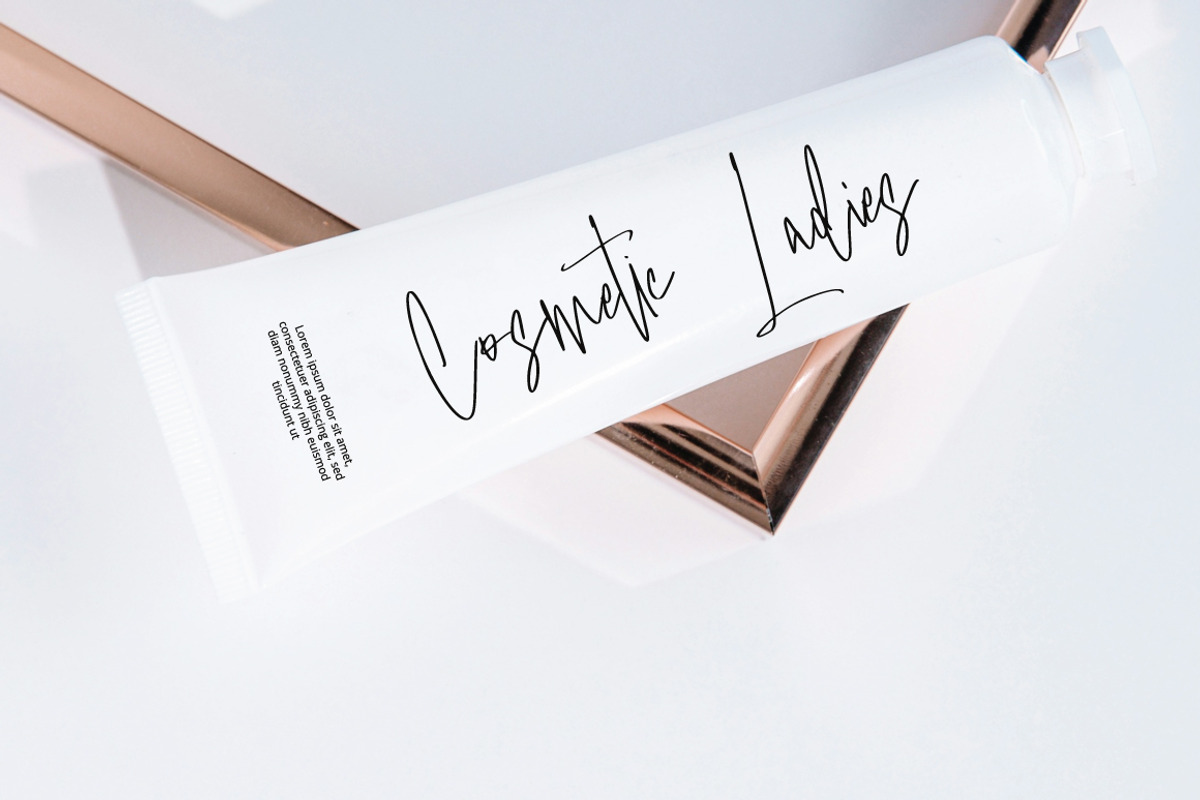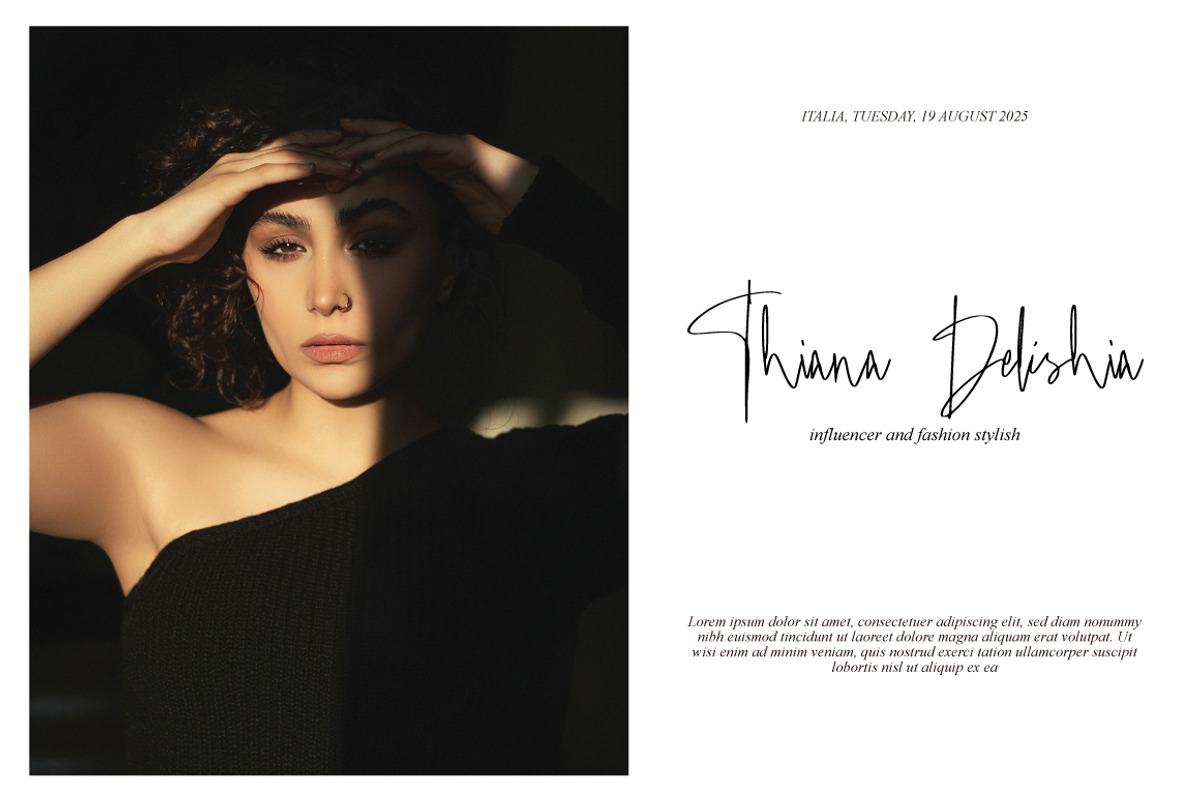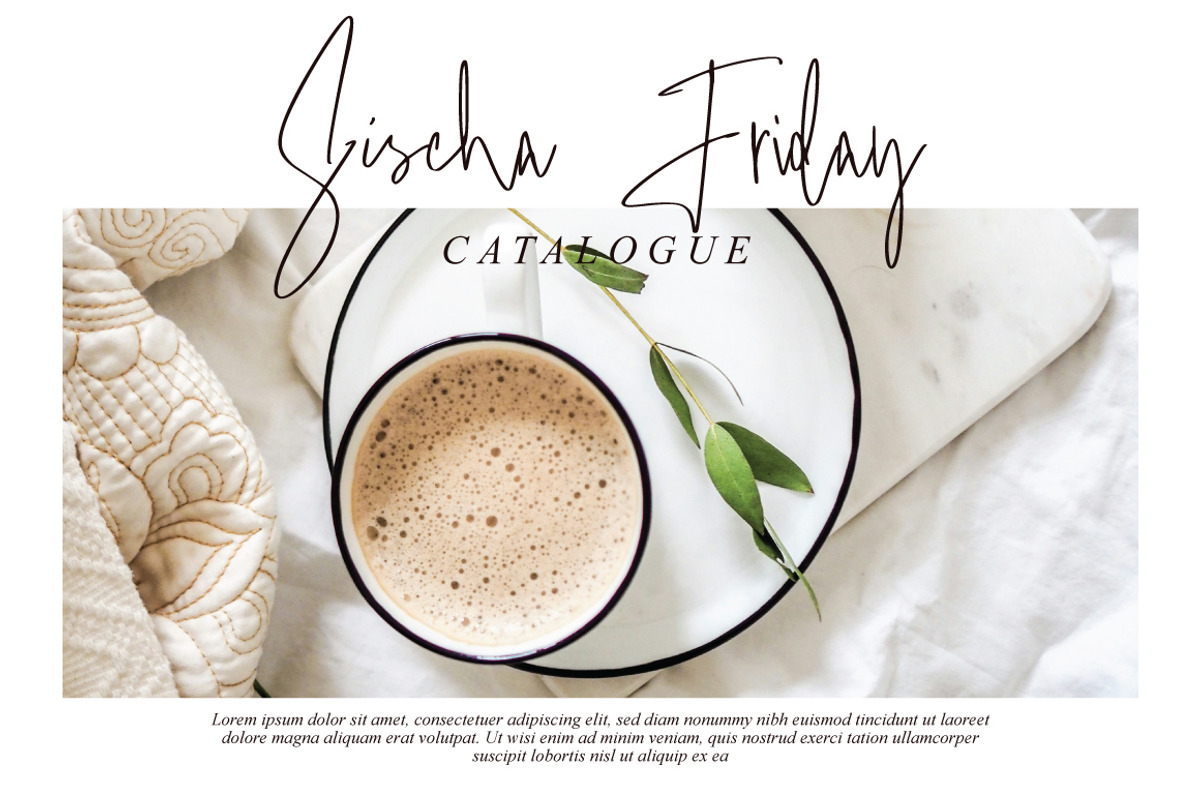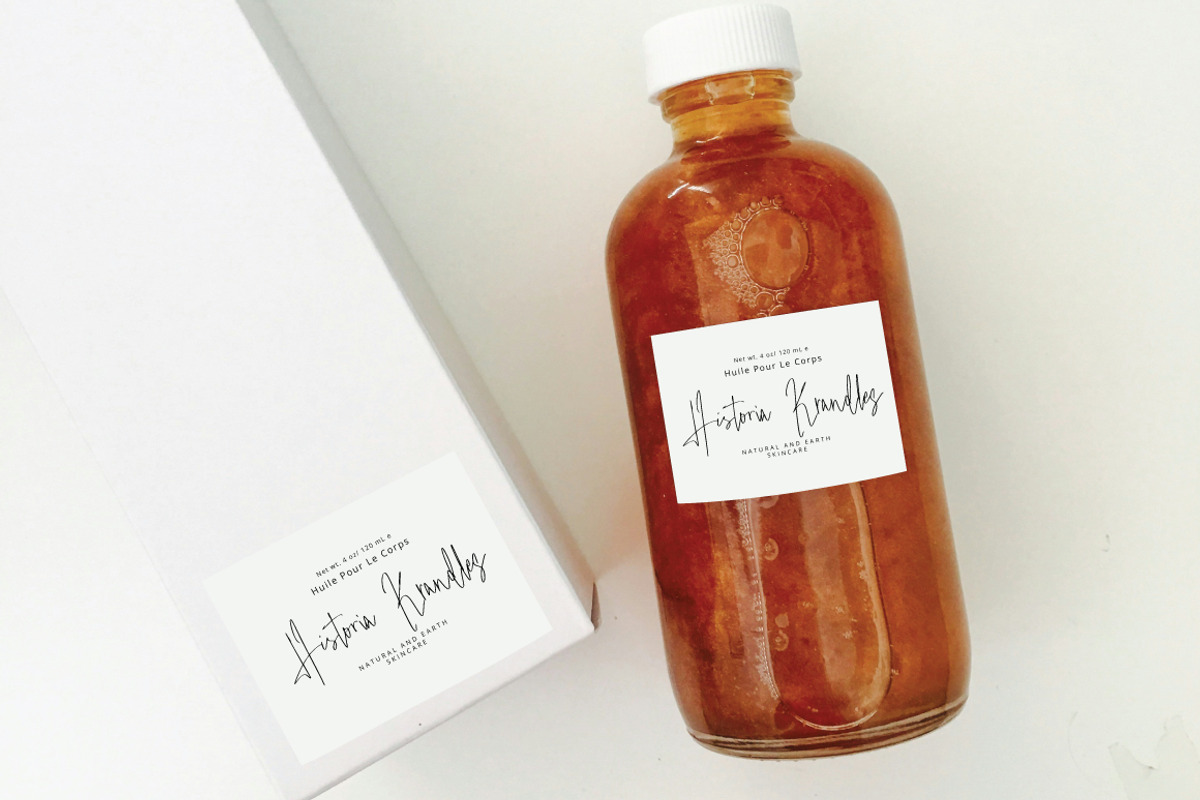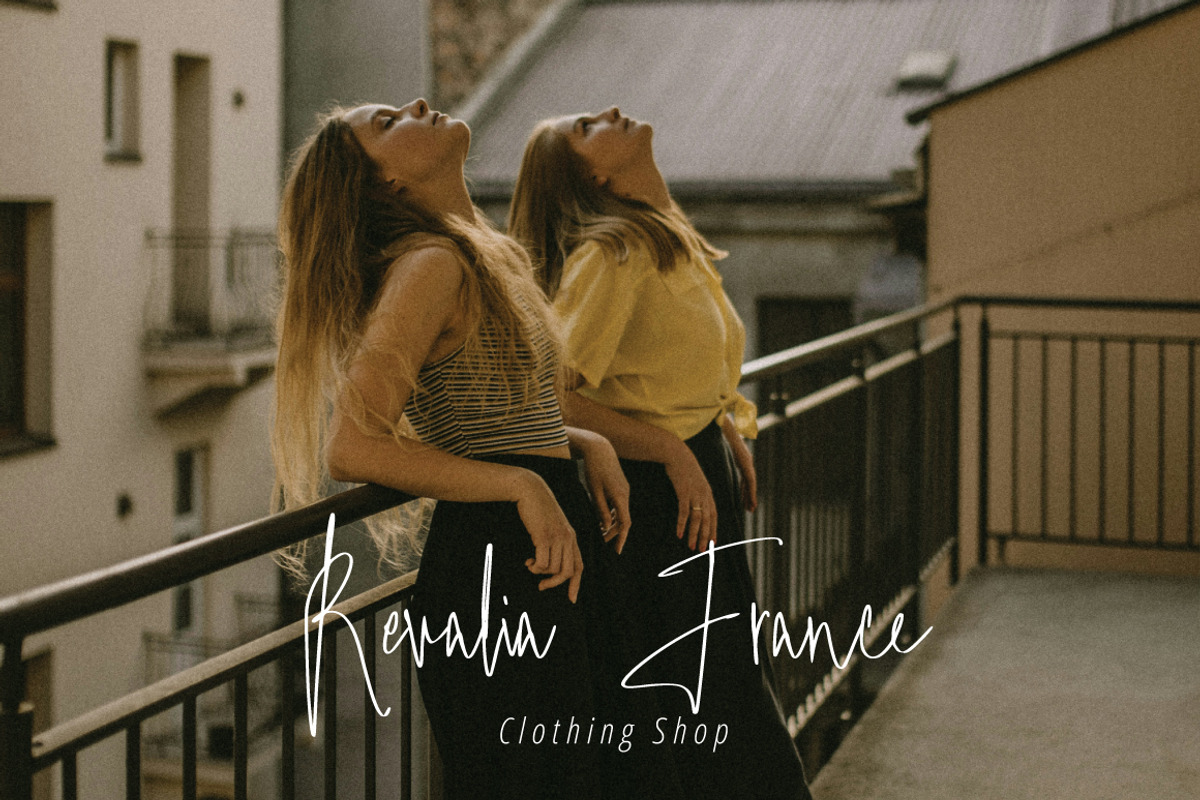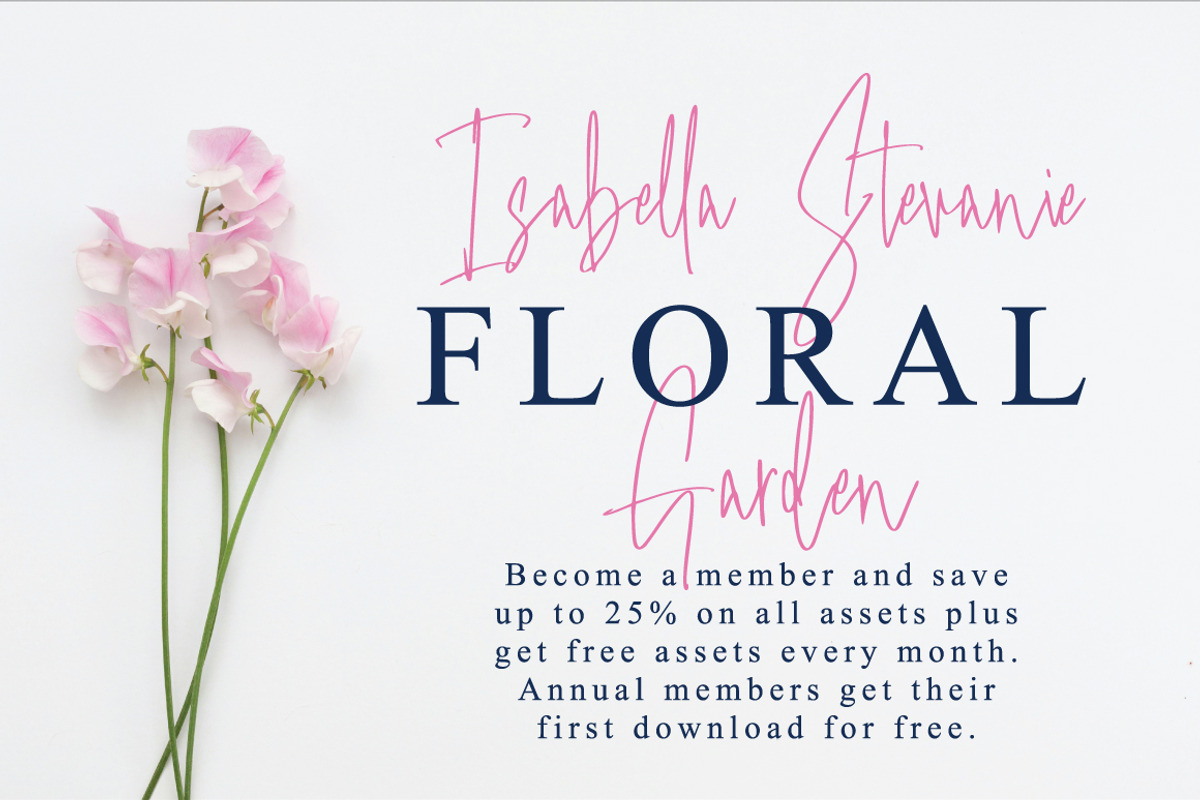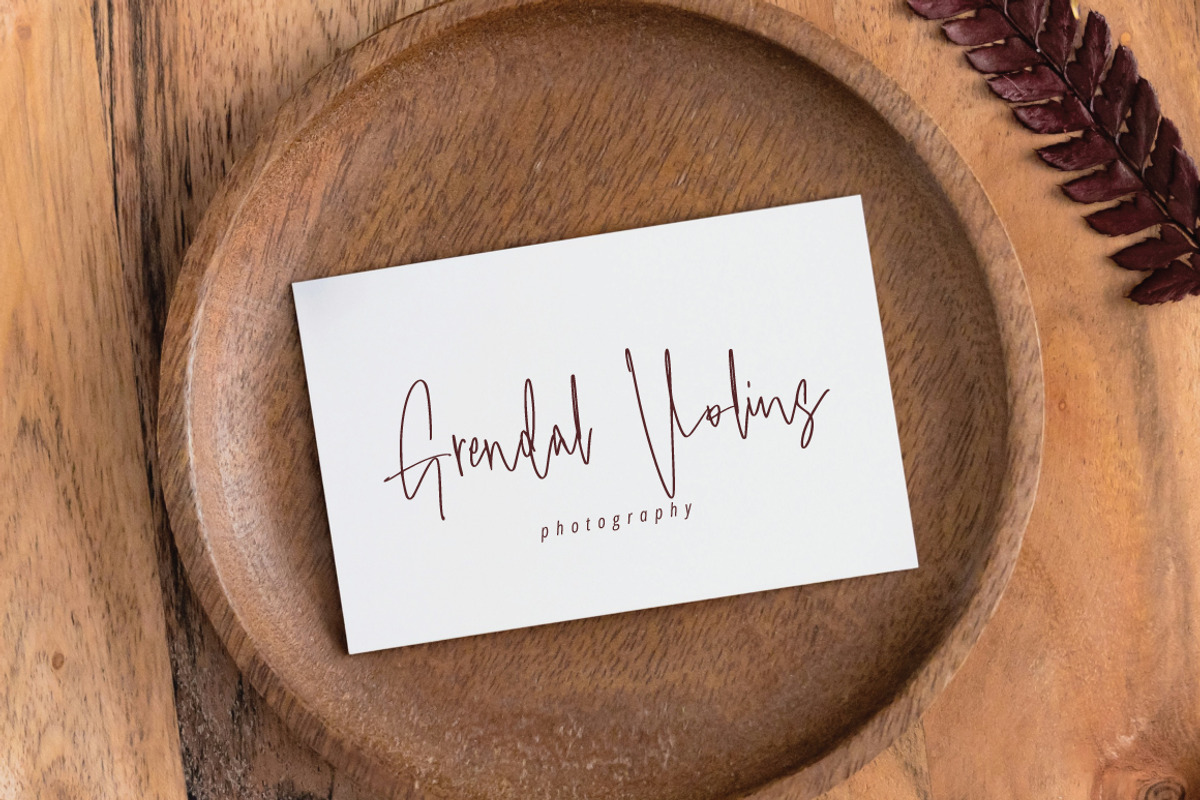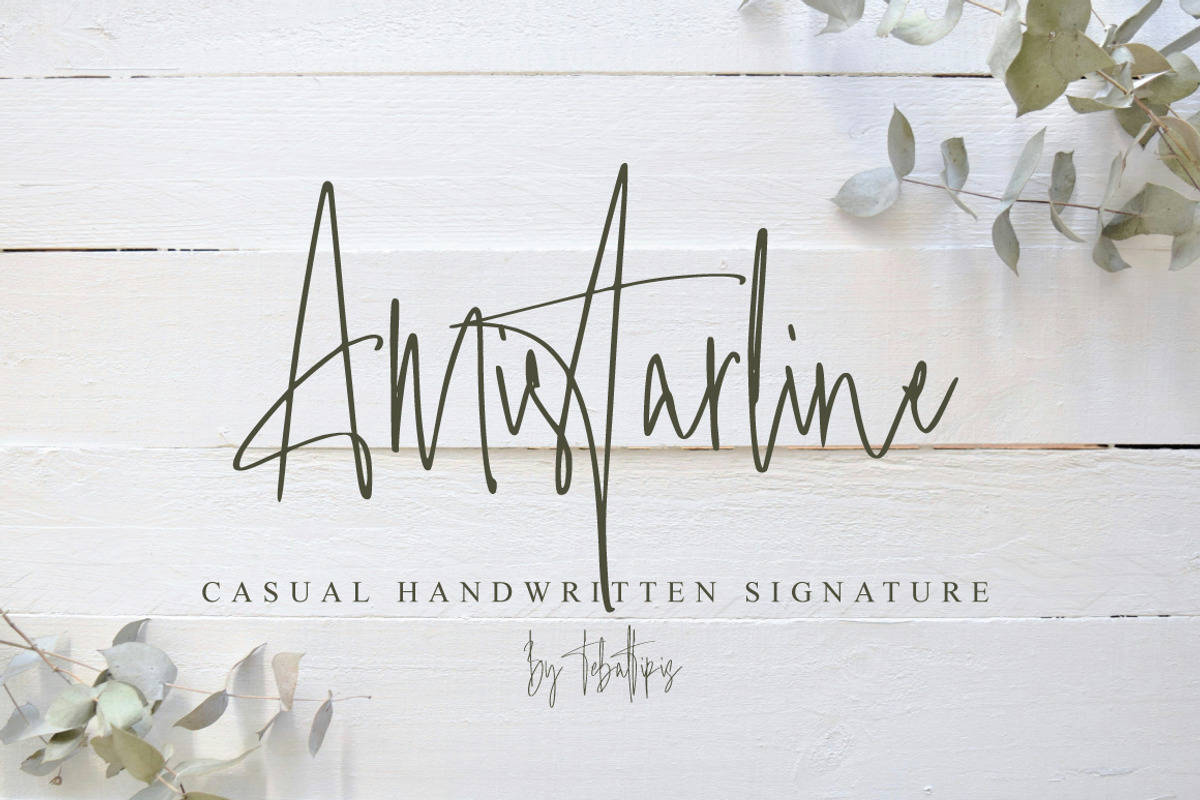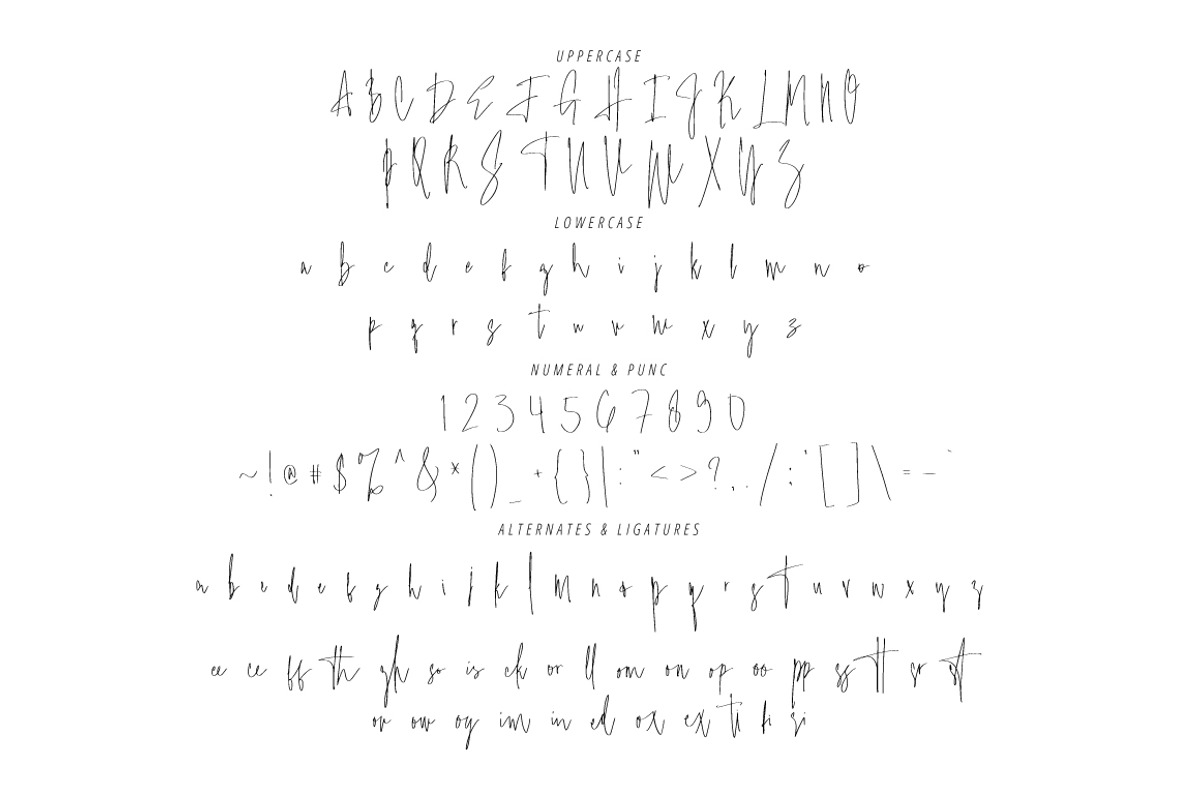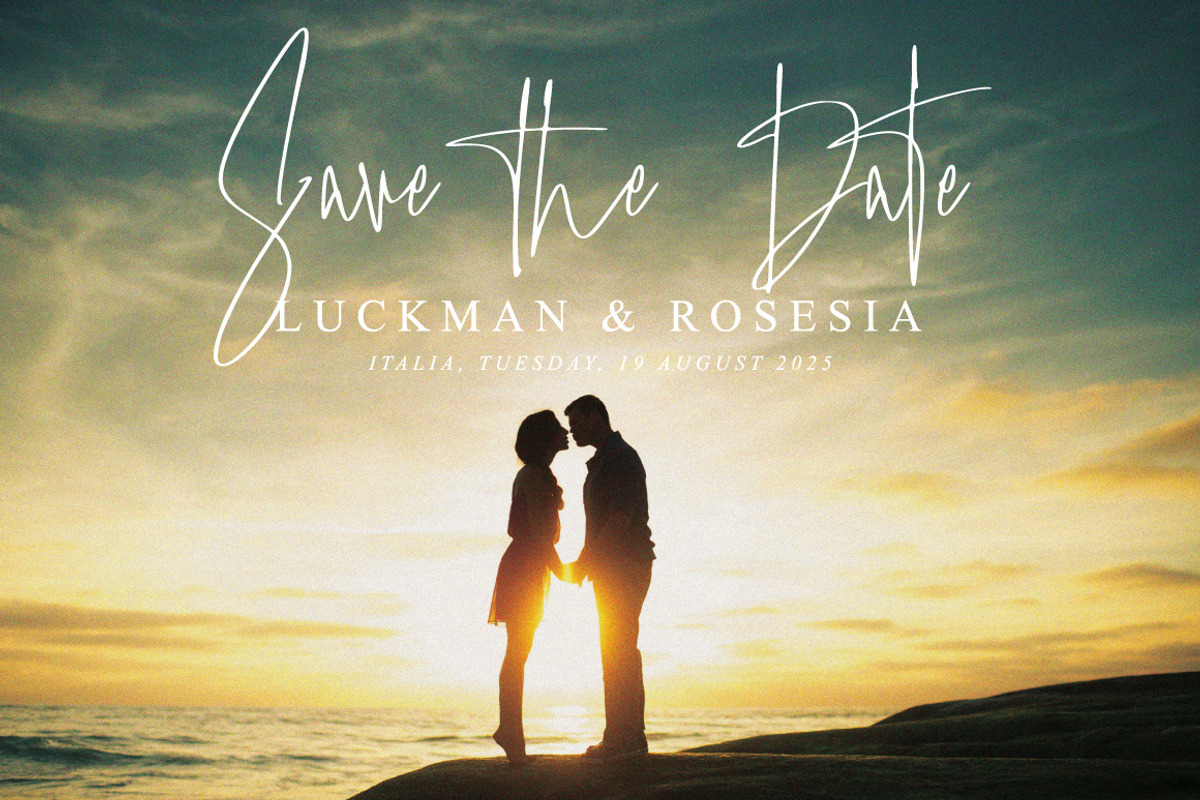
Amistarline - Handmade Signature
Amistarline Signature with a handmade Signature style, decorative characters and a dancing baseline!
Amistarline Signature with 130+ glyphs. The alternative characters were divided into several Open Type features such as Swash, Stylistic Sets, Stylistic Alternates, and Ligature. The Open Type features can be accessed by using Open Type savvy programs such as Adobe Illustrator, Adobe InDesign, Adobe Photoshop Corel Draw X version, And Microsoft Word. And this Font has given PUA unicode (specially coded fonts). so that all the alternate characters can easily be accessed in full by a craftsman or designer.
Amistarline Signature Features :
Uppercase & Lowercase International Languange & Symbols Support Punctuation & Number PUA Unicode Range Standard Ligatures Discretionary Ligatures Stylistic Alternates Stylistic Set.